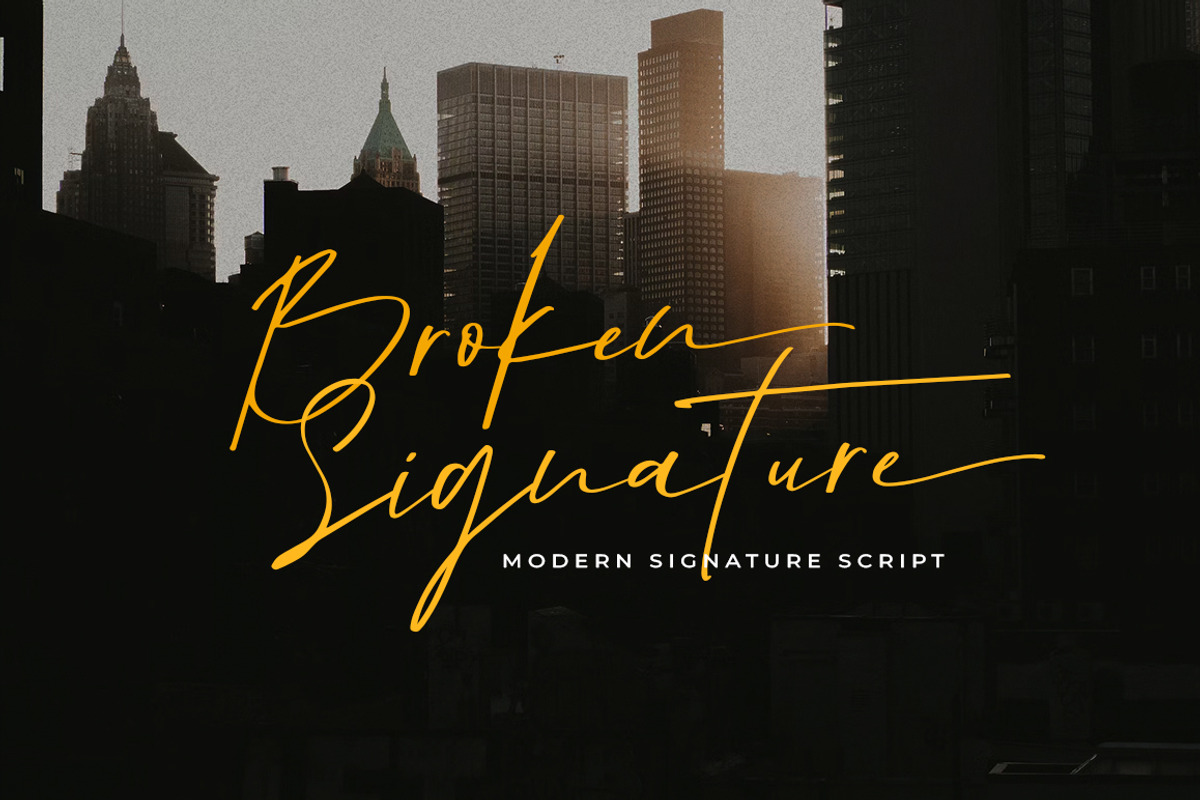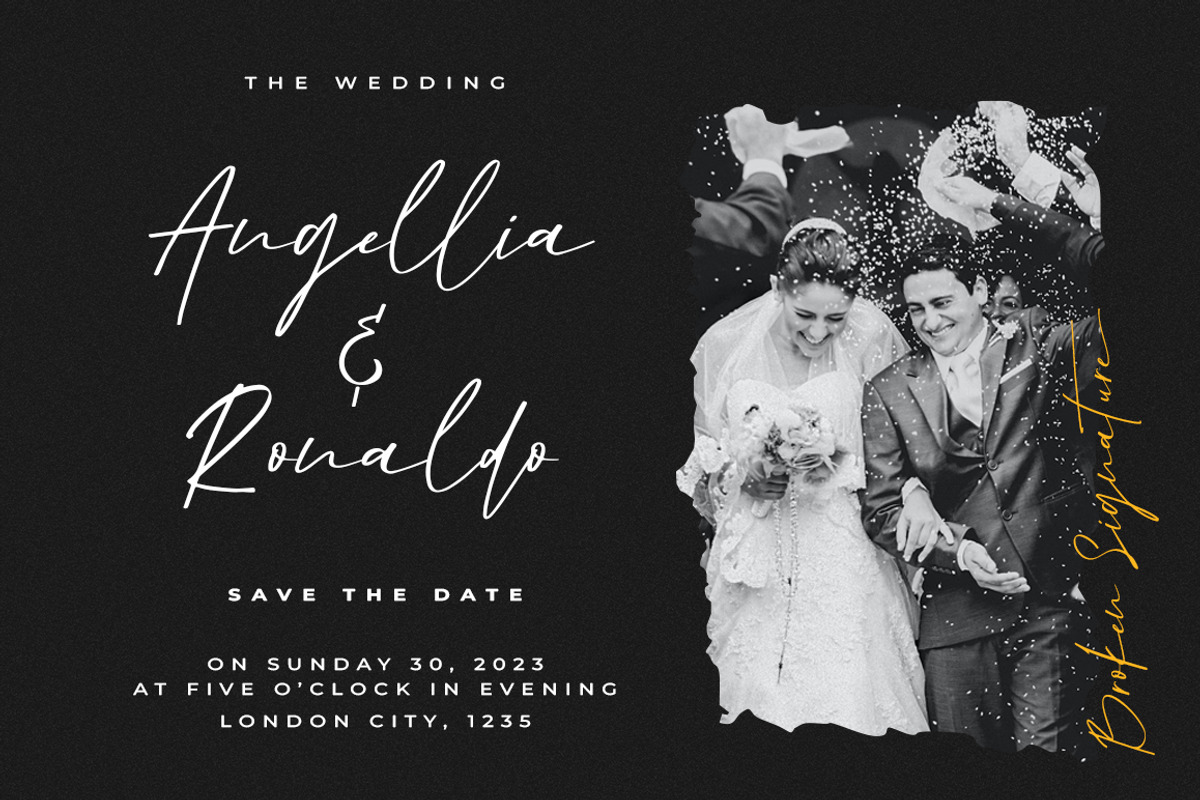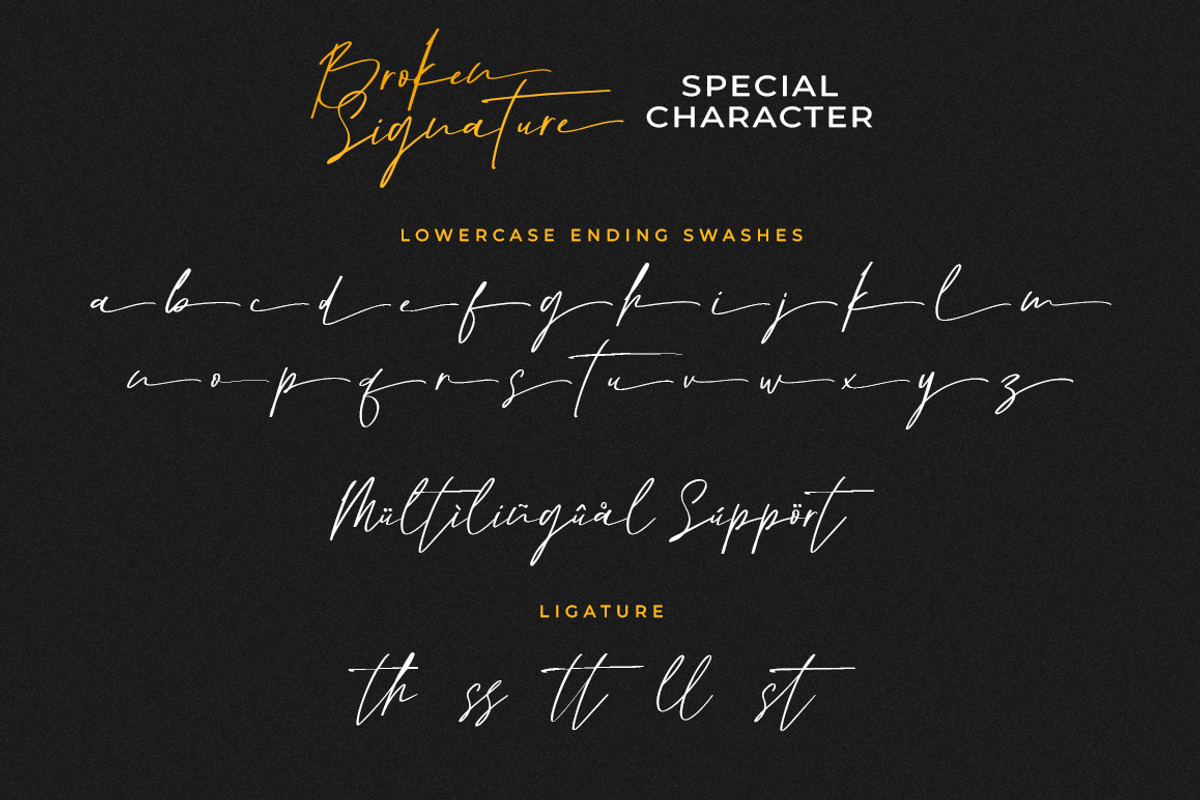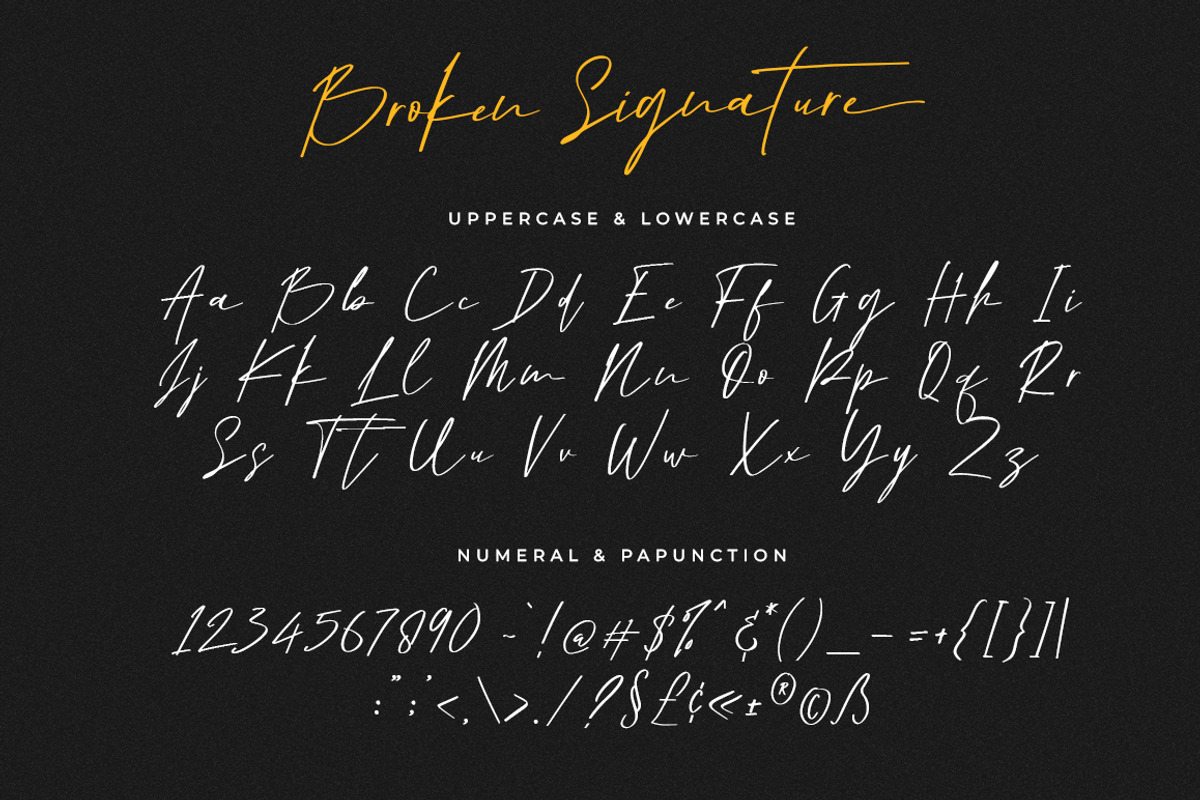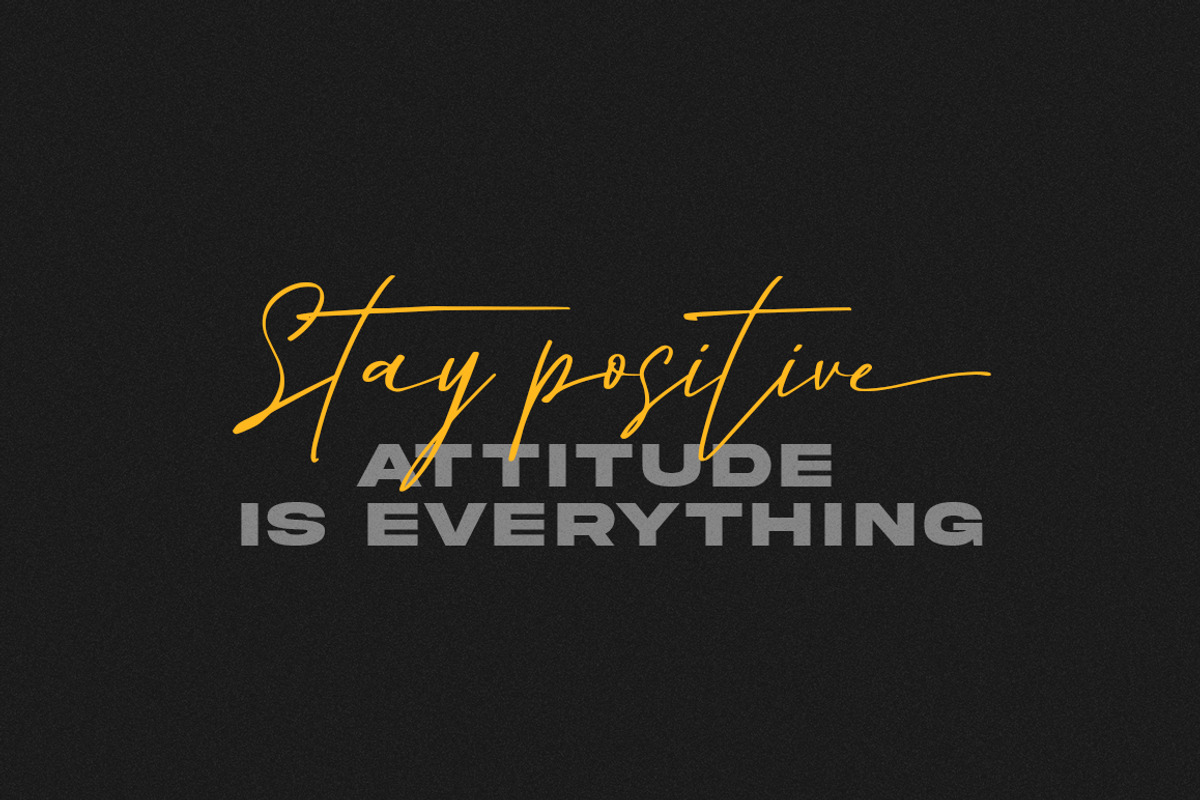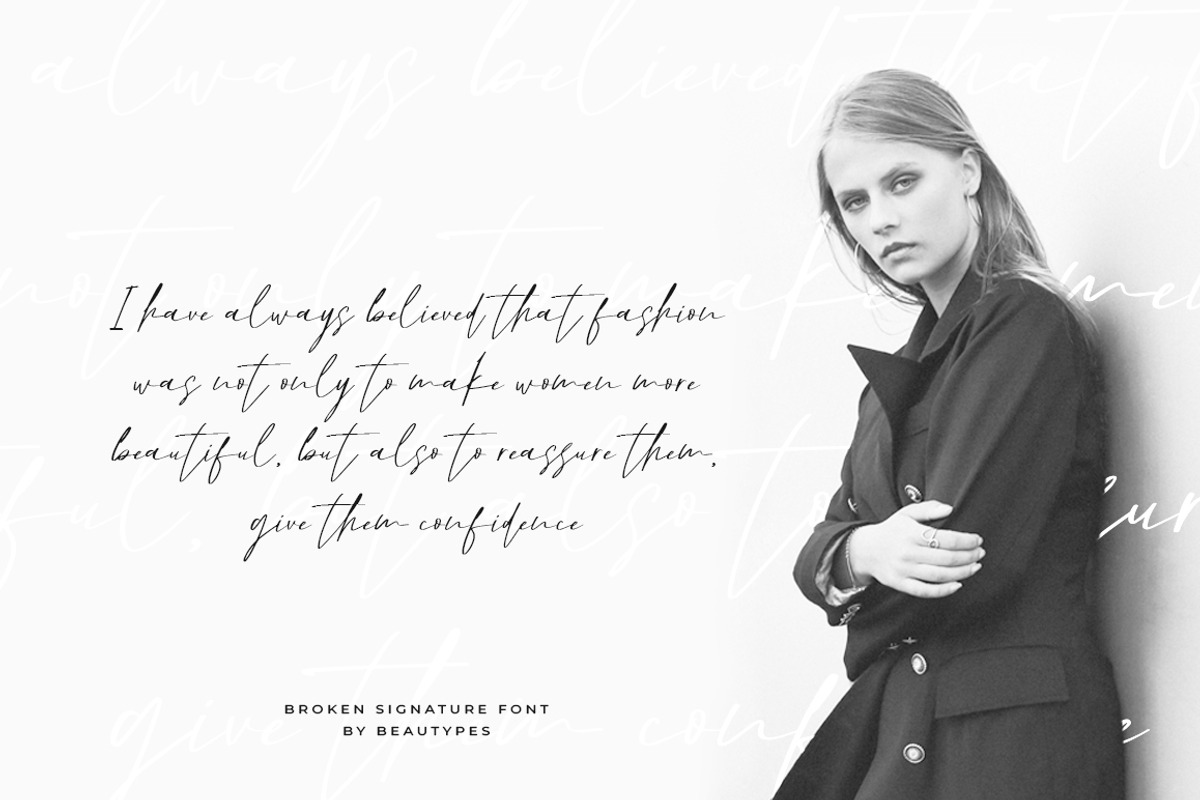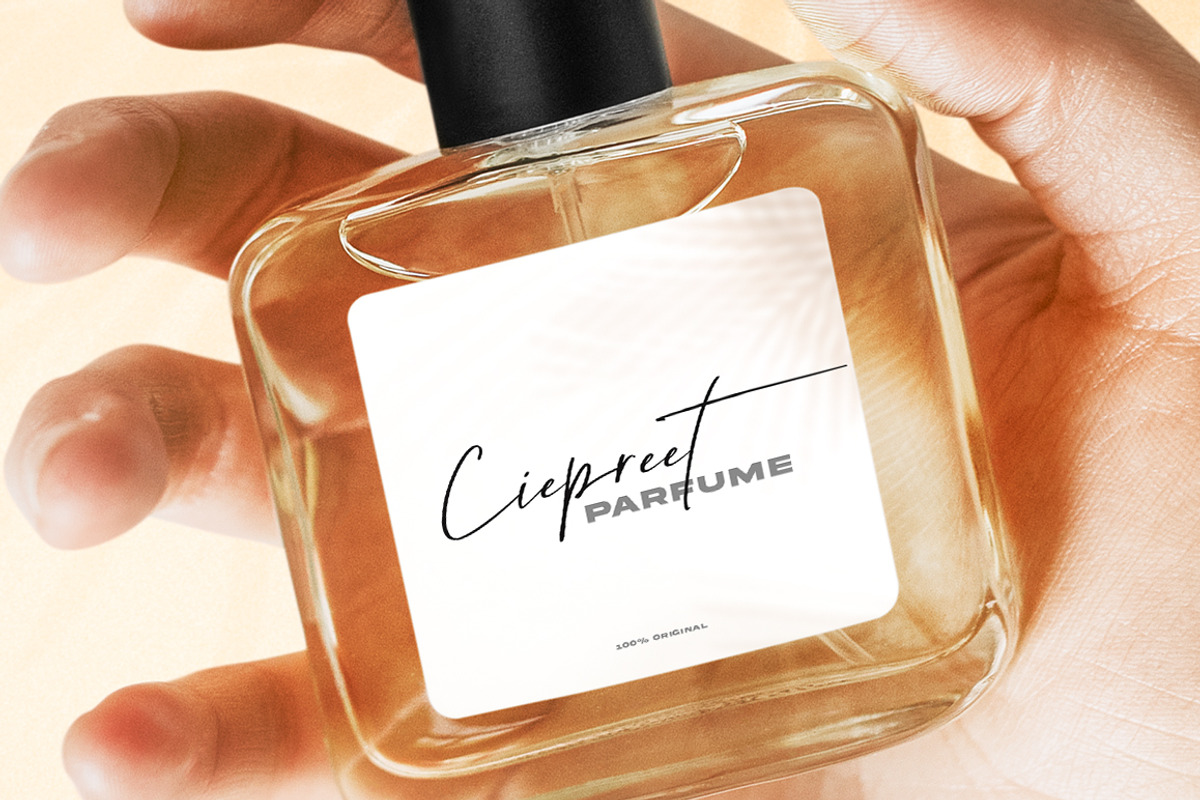
Broken Signature
Broken Signature is the original handwritten font. The designs look stunning and attractive with natural touches and swash strokes. I made this font for those of you who need it for branding, taglines, websites, invitations, logos, cards, magazines and so on.